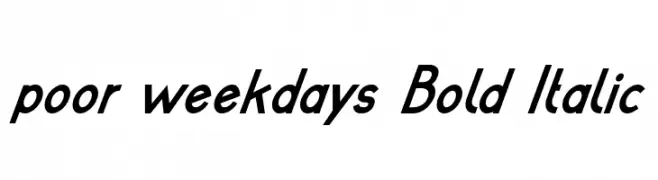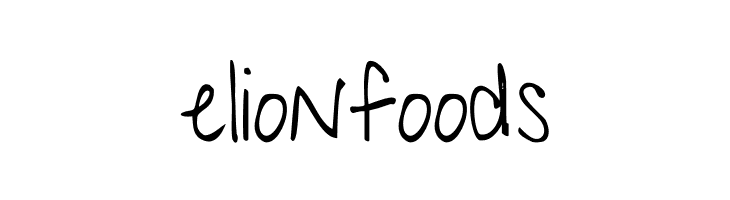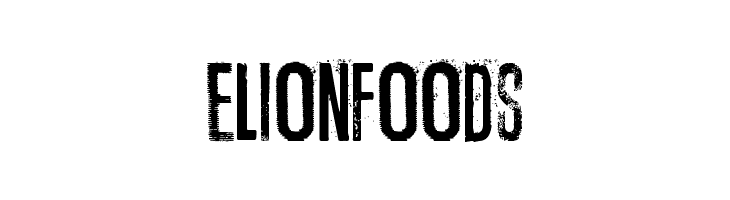
A bold, brush-style font with dynamic, textured strokes.
( Fonts by junkohanhero )
A rugged, distressed font with a gritty, urban feel.
( Fonts by Galdino Otten - galdinootten.com )
A bold, distressed font with a vintage, stamp-like appearance.
( Fonts by www.kimberlygeswein.com - Kimberly Geswein )
A playful, casual handwritten font with fluid strokes and a natural flow.
( Fonts by Roland Huse - rolandhuse.com )
A bold, italicized font with a modern slant and medium contrast.
( Fonts by junkohanhero )
A distressed, grunge-style font with a bold, rugged appearance.